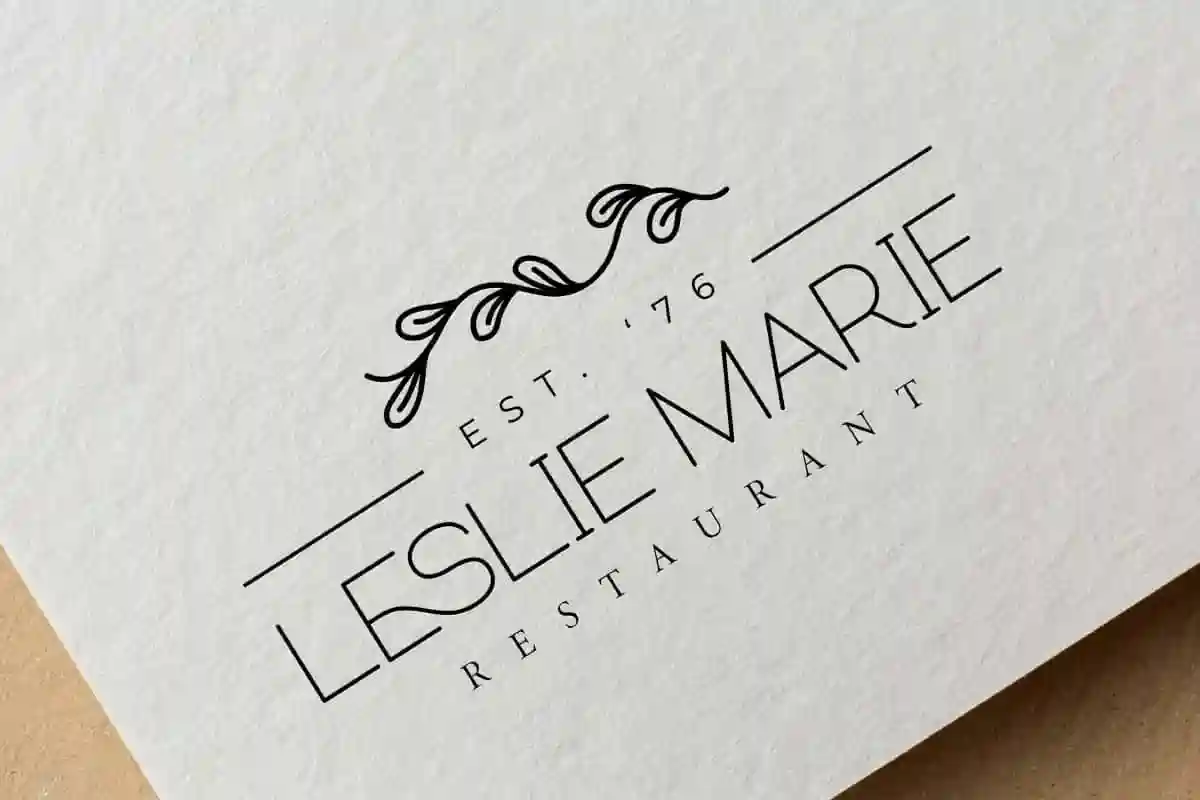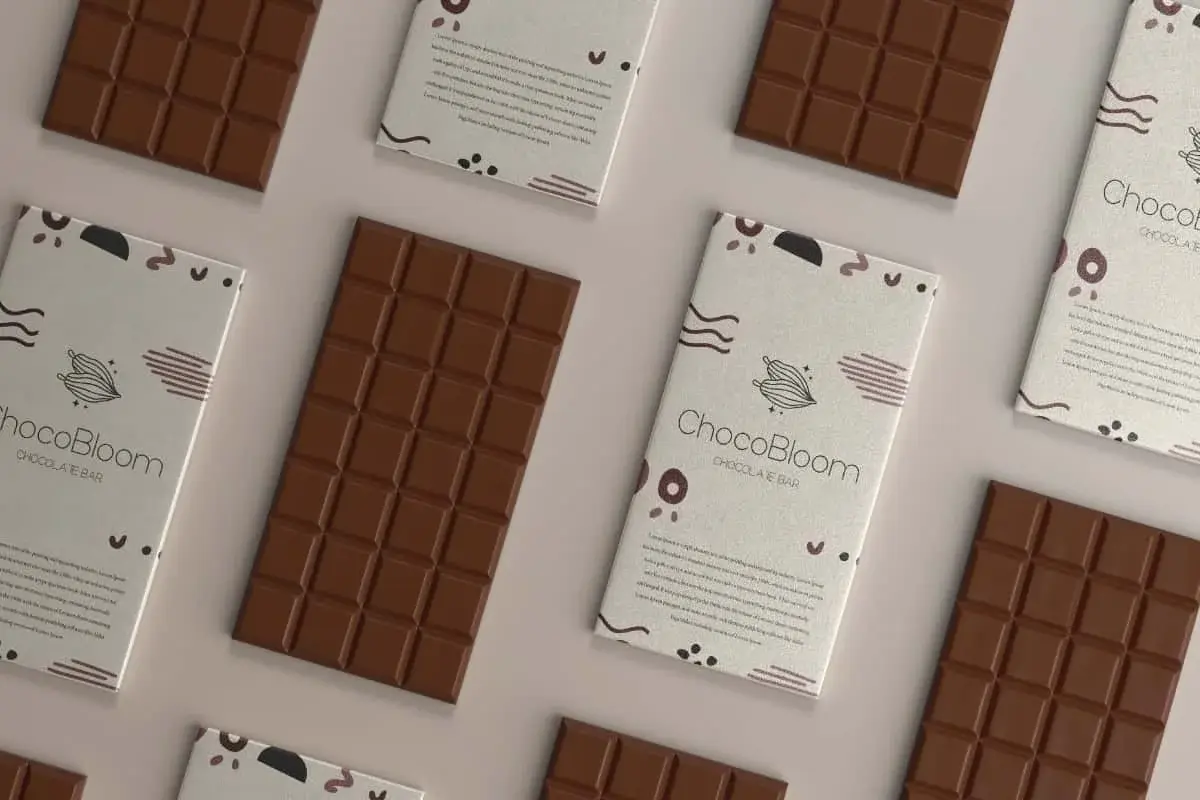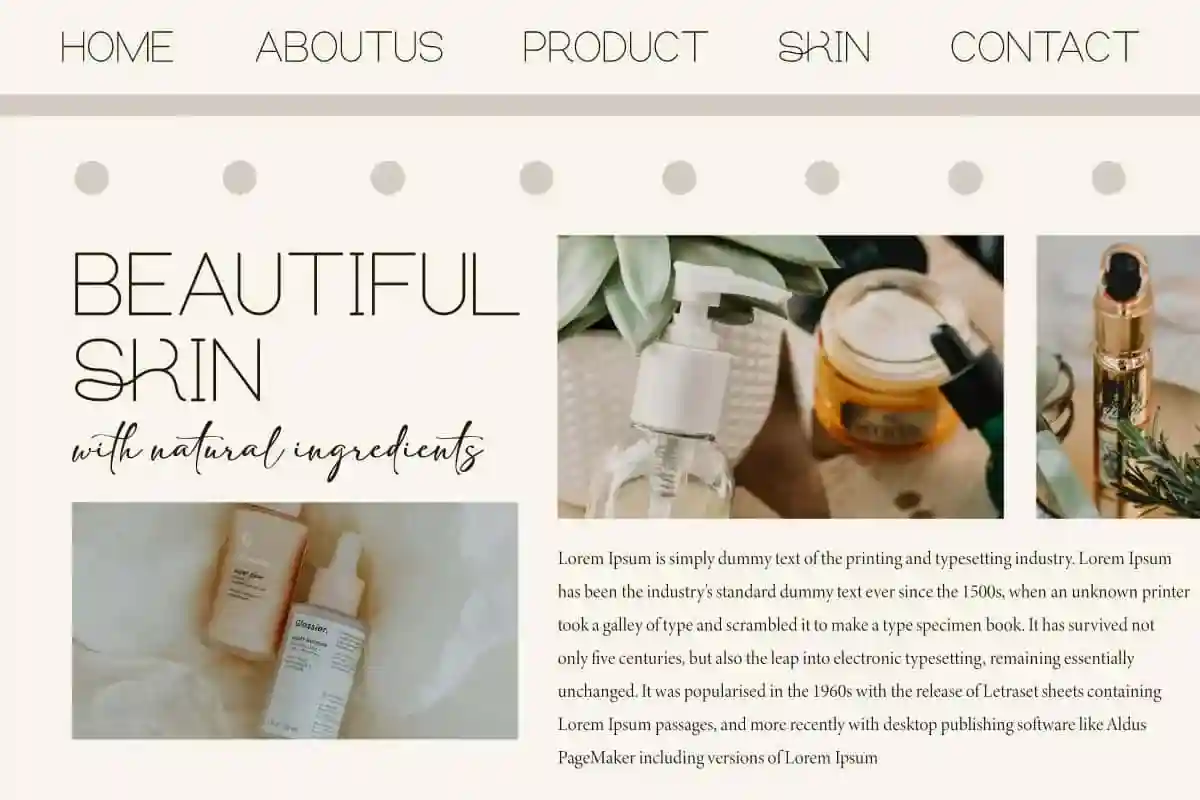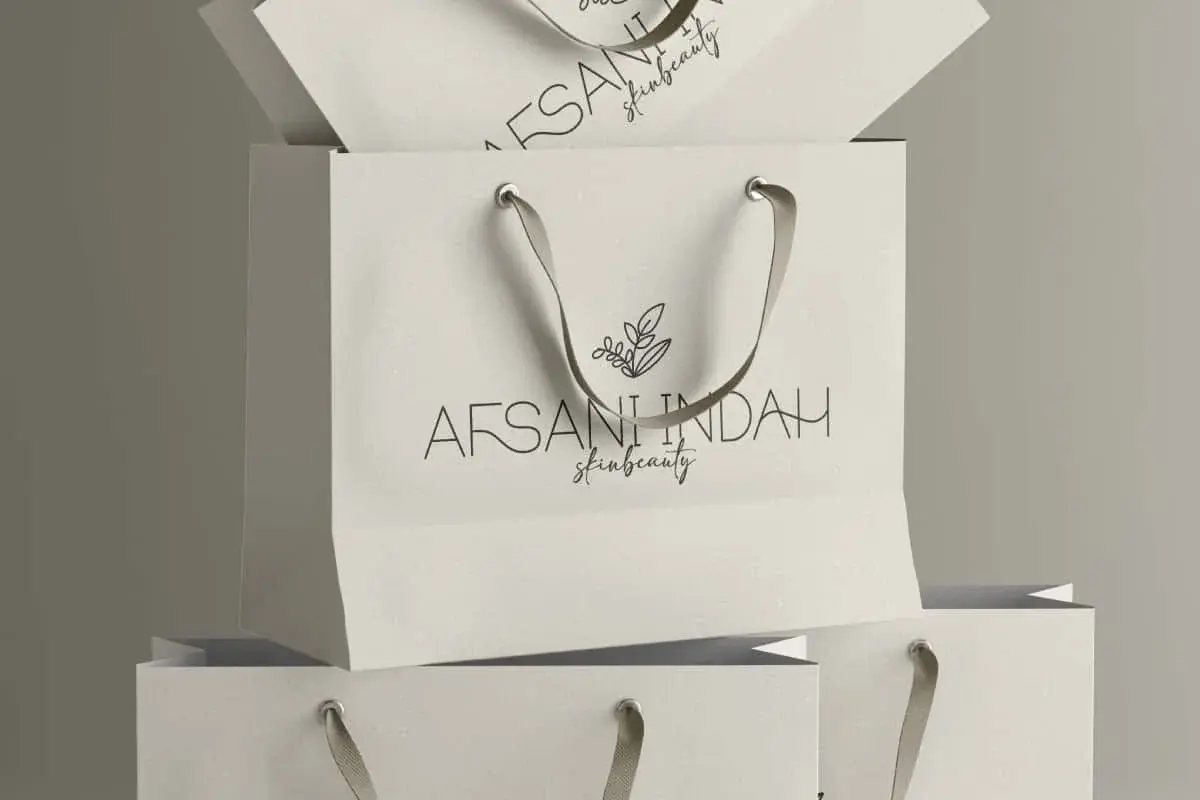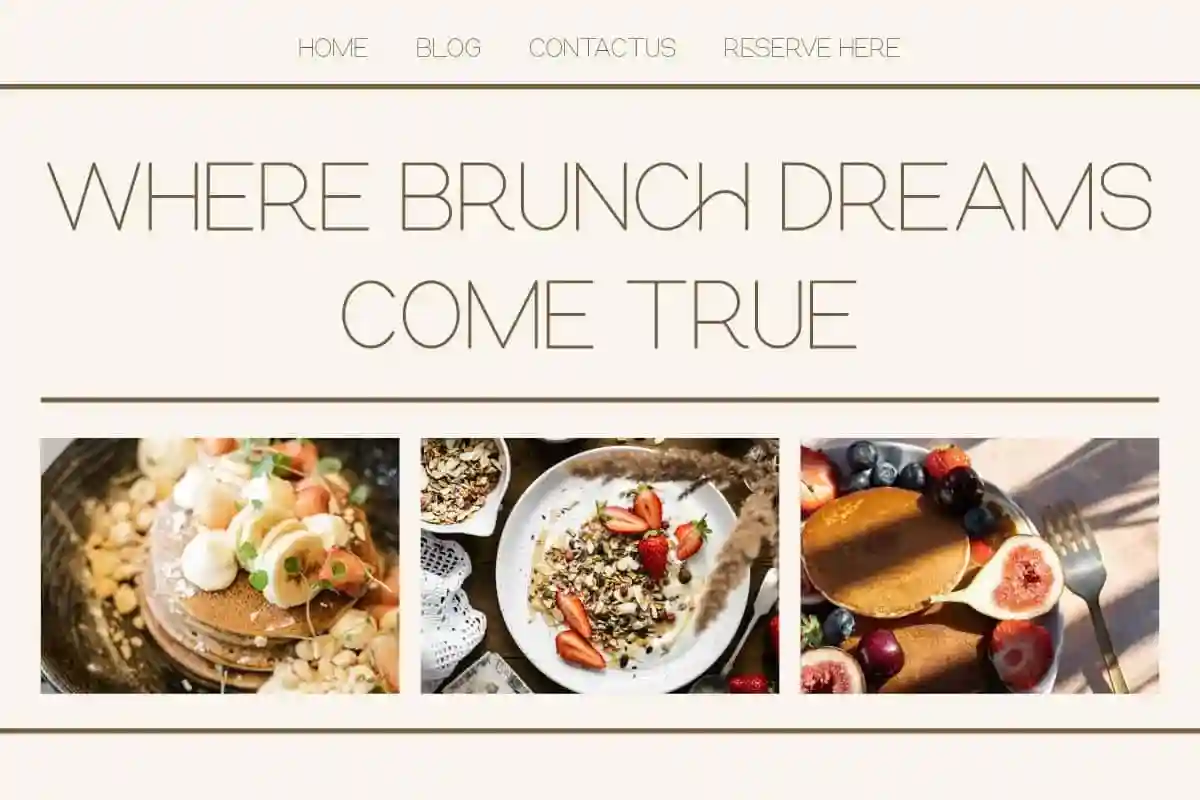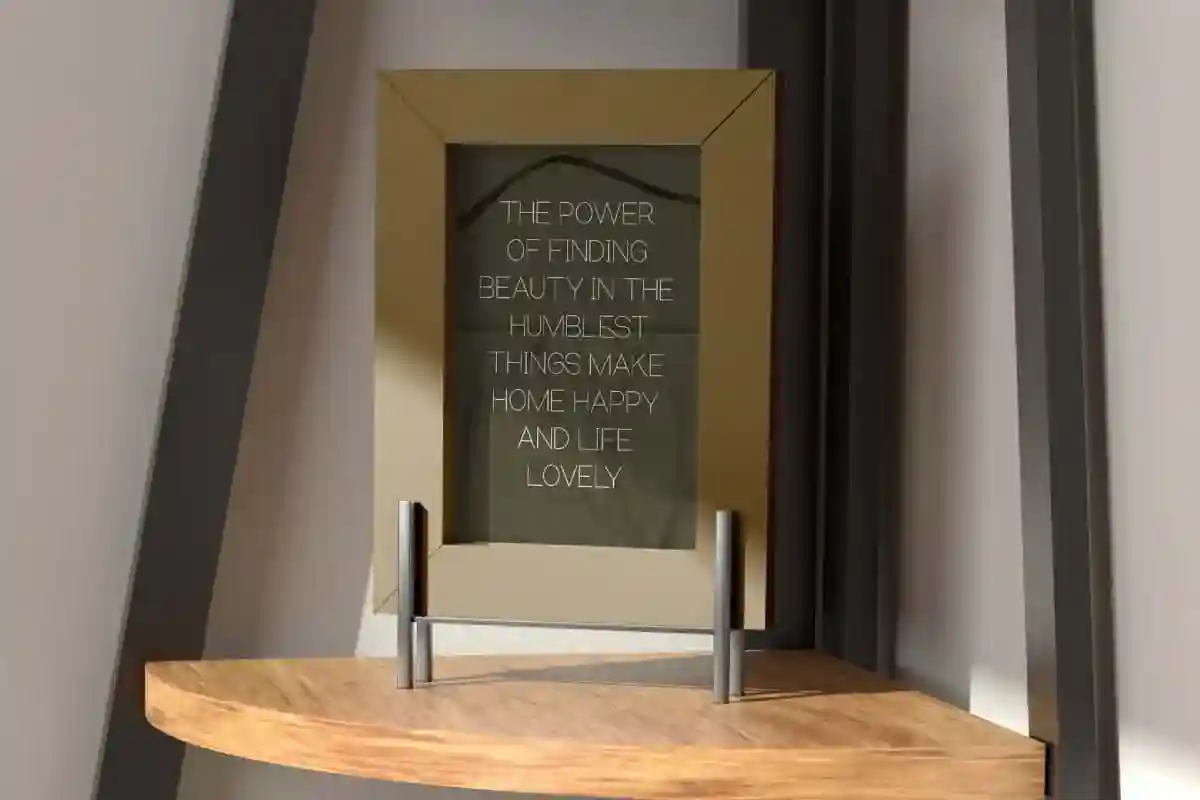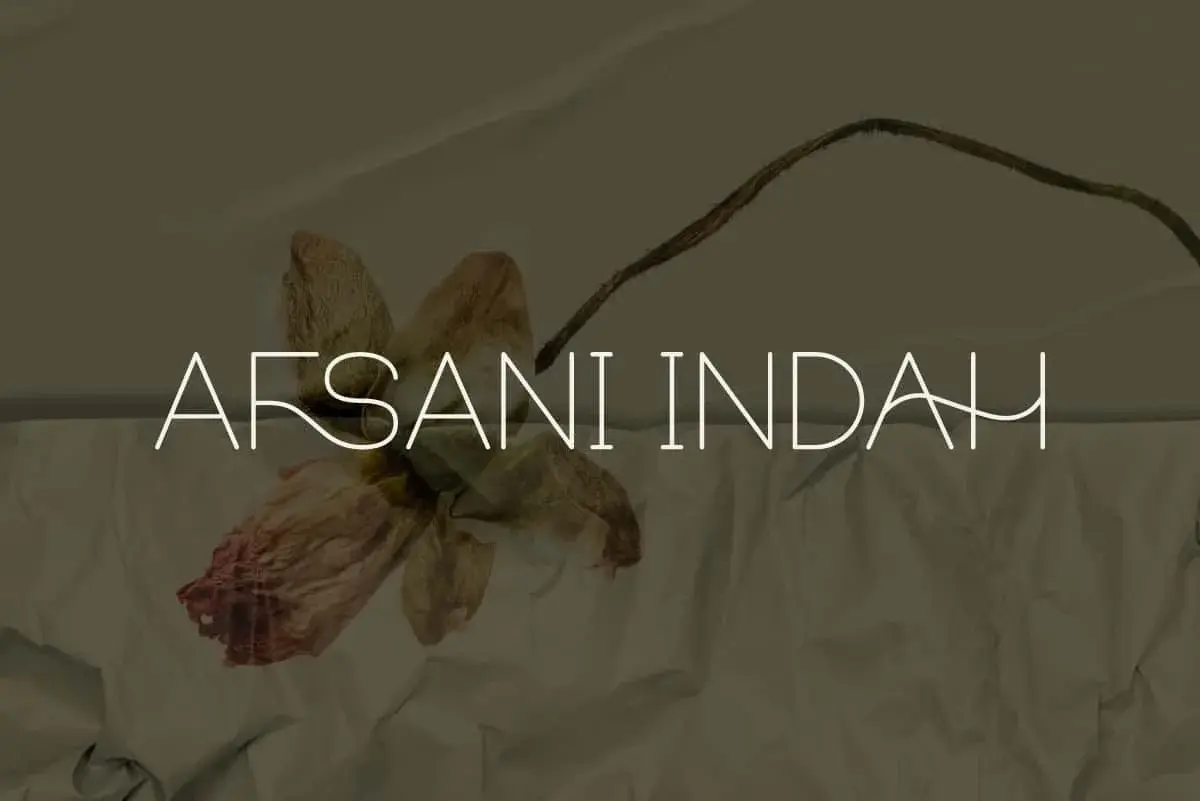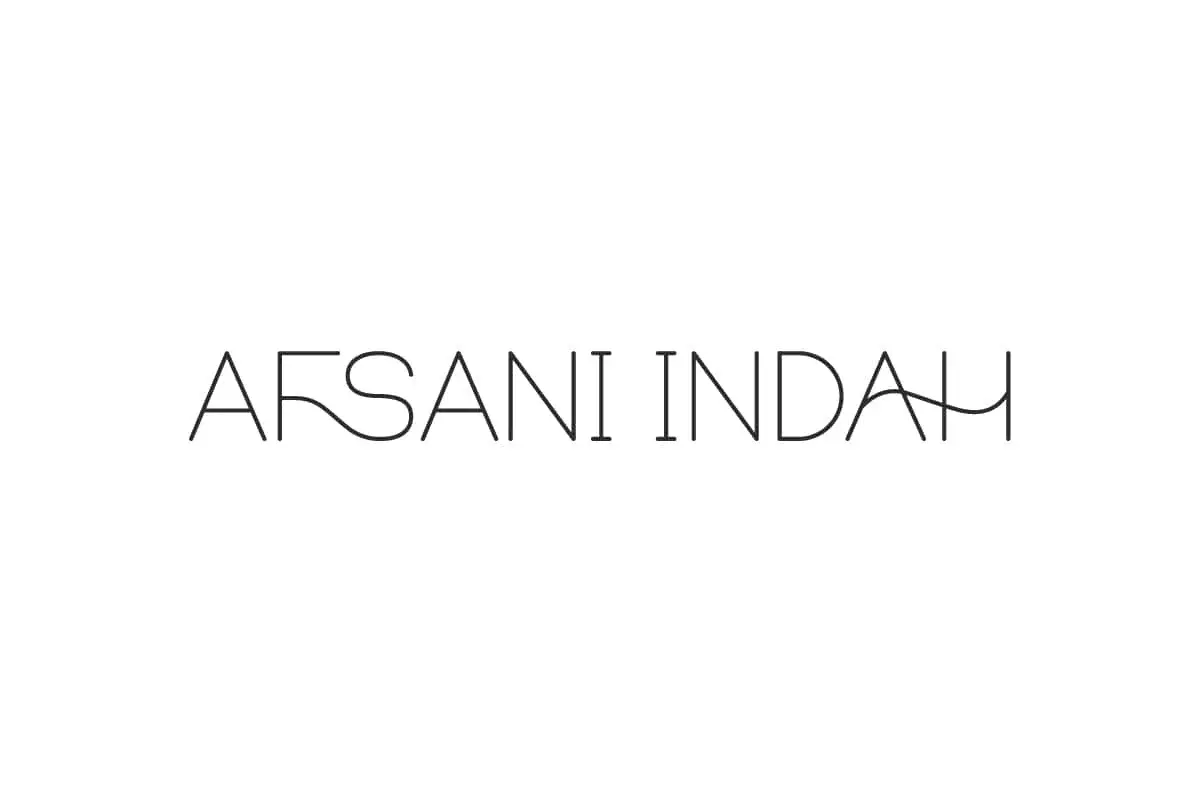
Afsani Indah Font is a beautiful sans serif display font with rounded edges, having a modern and refined feel. Making it looks so firm yet simple!
Afsani Indah Font is a beautiful soft sans serif display font, it can make your project style look different personally and more adorable. Perfect for banners, blogs, covers, custom bag, invitation, label, logos, menu, mockup, packaging, quotes, stationery, template, title, watermarks, website, etc.
Afsani Indah Font includes full set of Uppercase and Lowercase Basic Characters, Number, Punctuation, Symbol, and Ligature. Inspired by the timeless style but made a little subtle with rounded corners, perfect for accessories and gift, authors, beauty clinic, boutique, cafes, cosmetic, florist, graphic design, handicraft, home furniture, photography, restaurant, spa salon, and more.